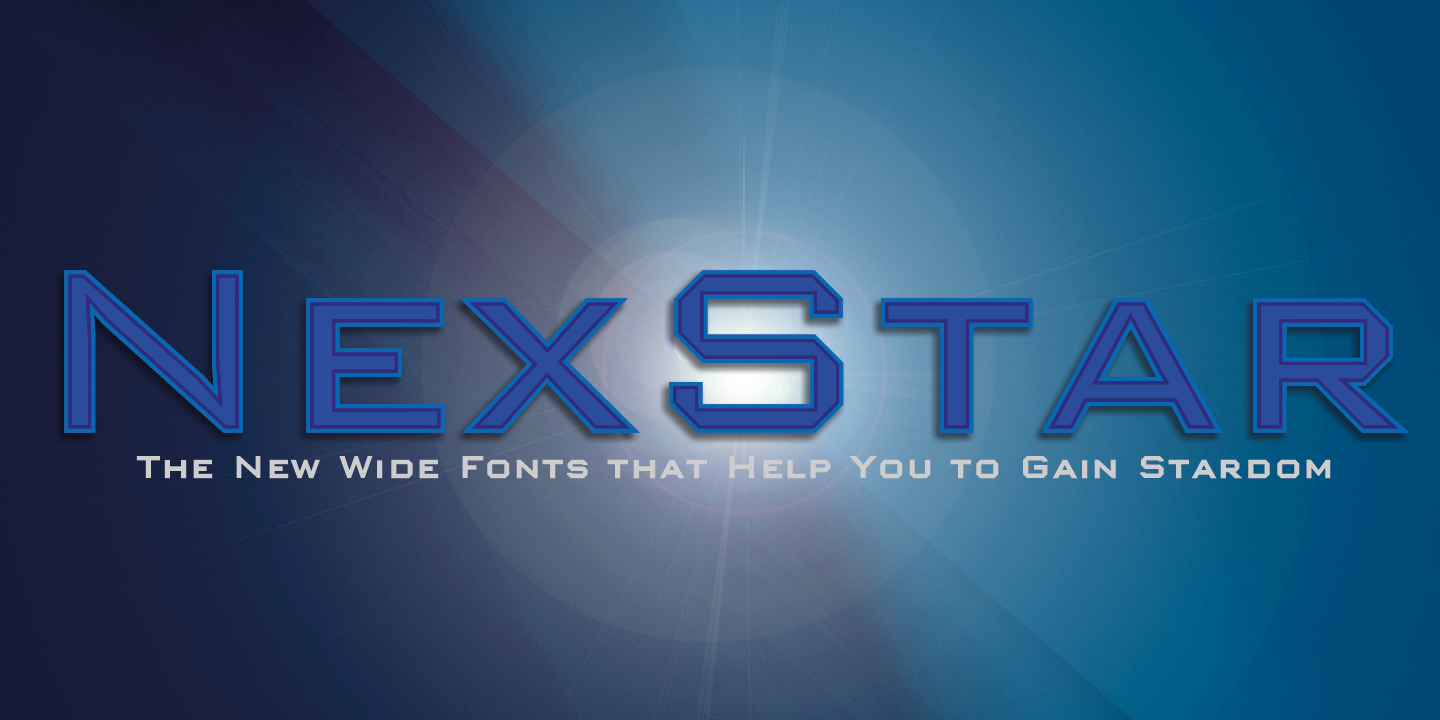
Nexstar Font is a futuristic and dynamic typeface, often characterized by its sharp angles, technological aesthetic, and a sense of forward momentum. It's perfectly suited for projects that demand a cutting-edge, innovative, and high-energy presence, such as sci-fi movie titles, gaming logos, tech company branding, and electronic music event posters. Imagine Nexstar Font gracing the interface of an advanced AI system, adding an undeniable sense of progress to a product launch, or providing a powerful and sleek voice for a virtual reality experience. Its modern forms and assertive character ensure your message is not just seen, but also experienced, leaving a lasting impression of innovation and advanced design.
What makes Nexstar Font truly exciting is its ability to instantly transport viewers into a realm of advanced technology and future possibilities. This font is designed to command attention and evoke a sense of excitement for what's next, making it ideal for headlines and titles where a strong visual impact is crucial. The unique design of its letterforms, often featuring precise geometric shapes, sharp terminals, or a glowing effect, contributes to its distinctive and memorable personality. It’s more than just a typeface; it’s a strategic design tool that imbues your content with a sense of innovation, speed, and an unforgettable presence. Nexstar Font stands out for its bold versatility and its capacity to elevate any design with its assertive and visually striking aesthetic.
Nexstar Font typically functions as a display font, meaning its primary strength lies in headlines, logos, and short bursts of text where its unique characteristics can truly shine. While it may not feature an extensive range of weights or styles like a comprehensive text family, its impact comes from its singular, powerful design. It often includes a standard set of uppercase and lowercase letters, numbers, and basic punctuation, with its distinct stylistic elements being the main draw. This focused approach means that the Nexstar Font Free Download is an invaluable asset for creating eye-catching and memorable design elements that instantly communicate a powerful and striking theme, setting your work apart.